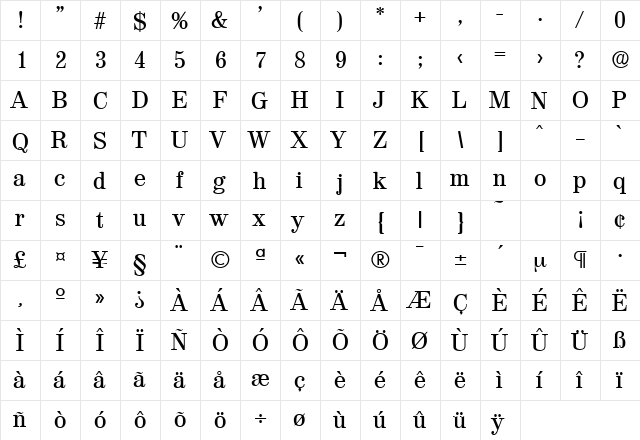
Valencia-Serial-Medium Regular
Design Context for Valencia-Serial-Medium Typeface
Valencia-Serial-Medium takes a measured approach to typography — its balanced proportions and neutral character make it a reliable workhorse for both digital and print work.